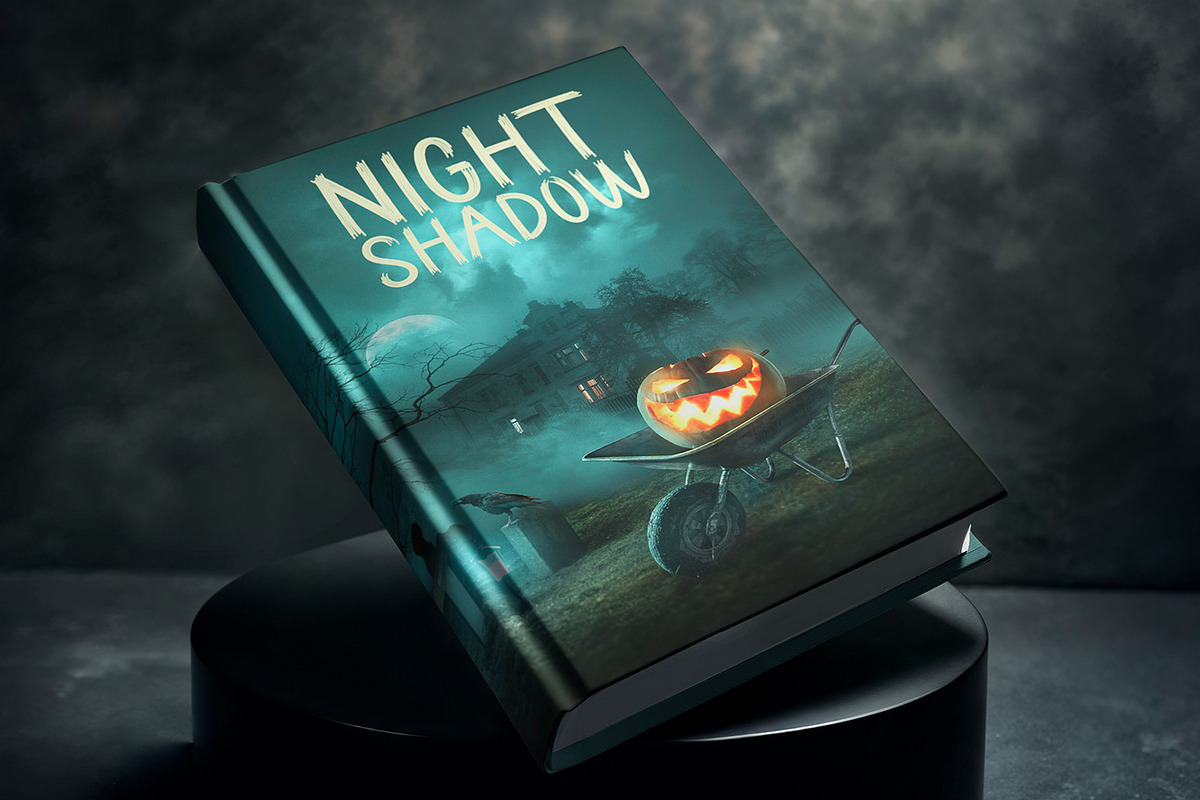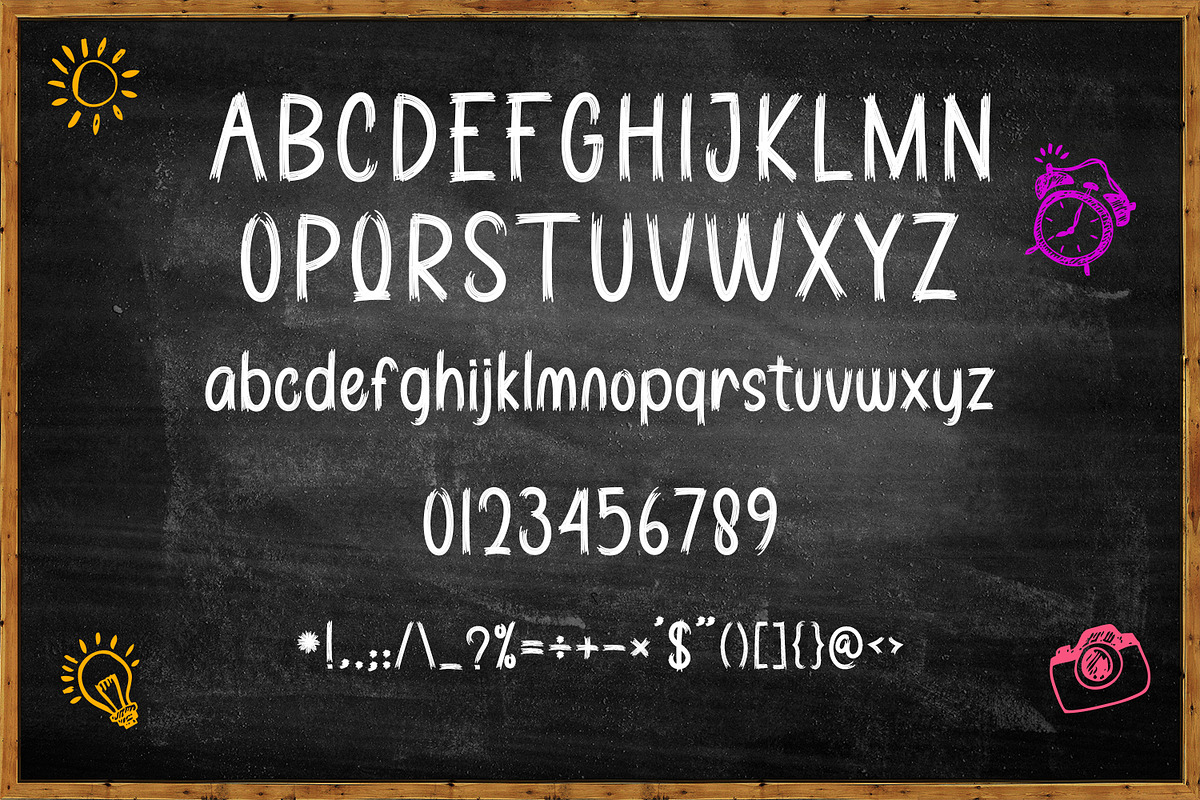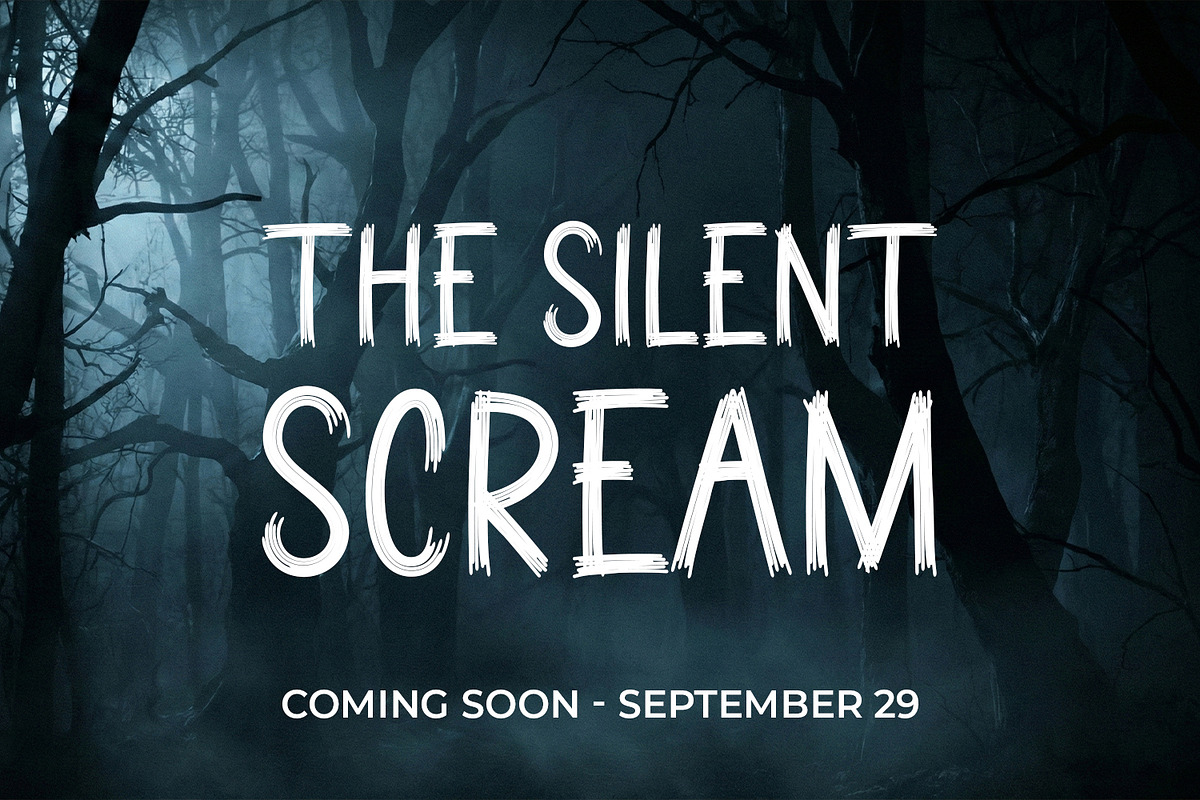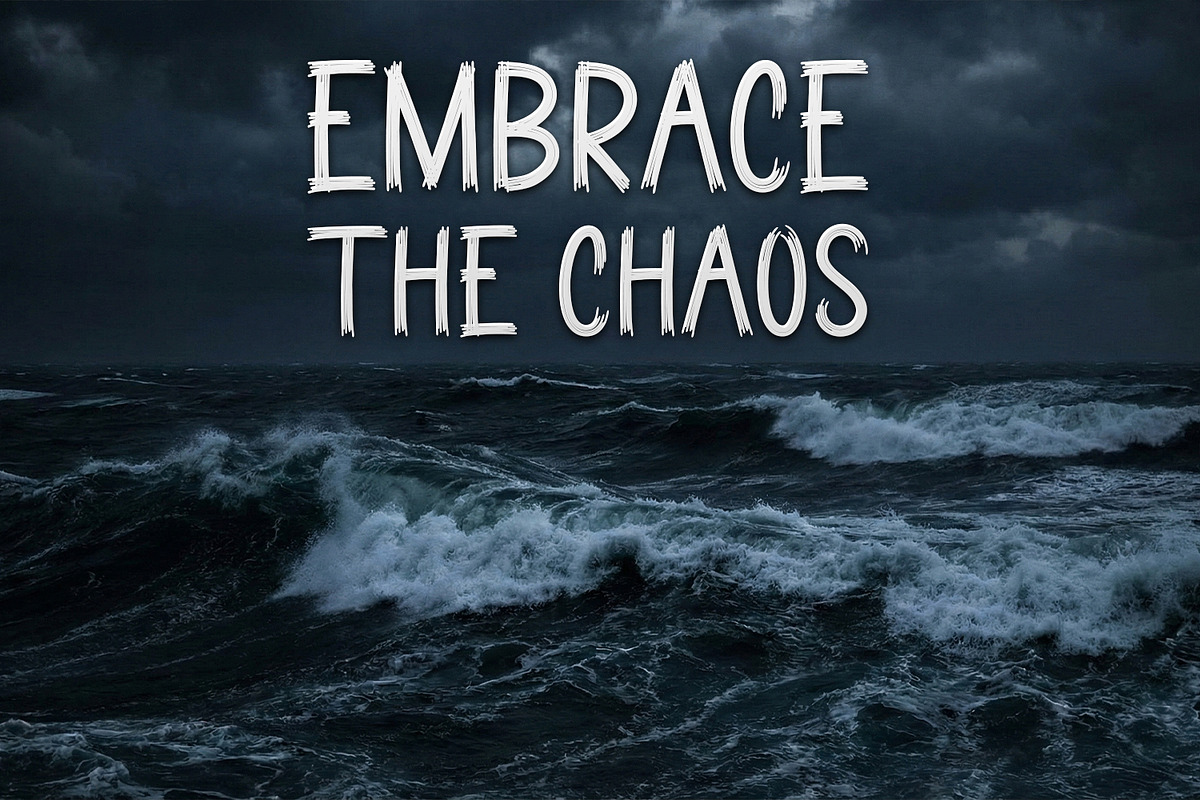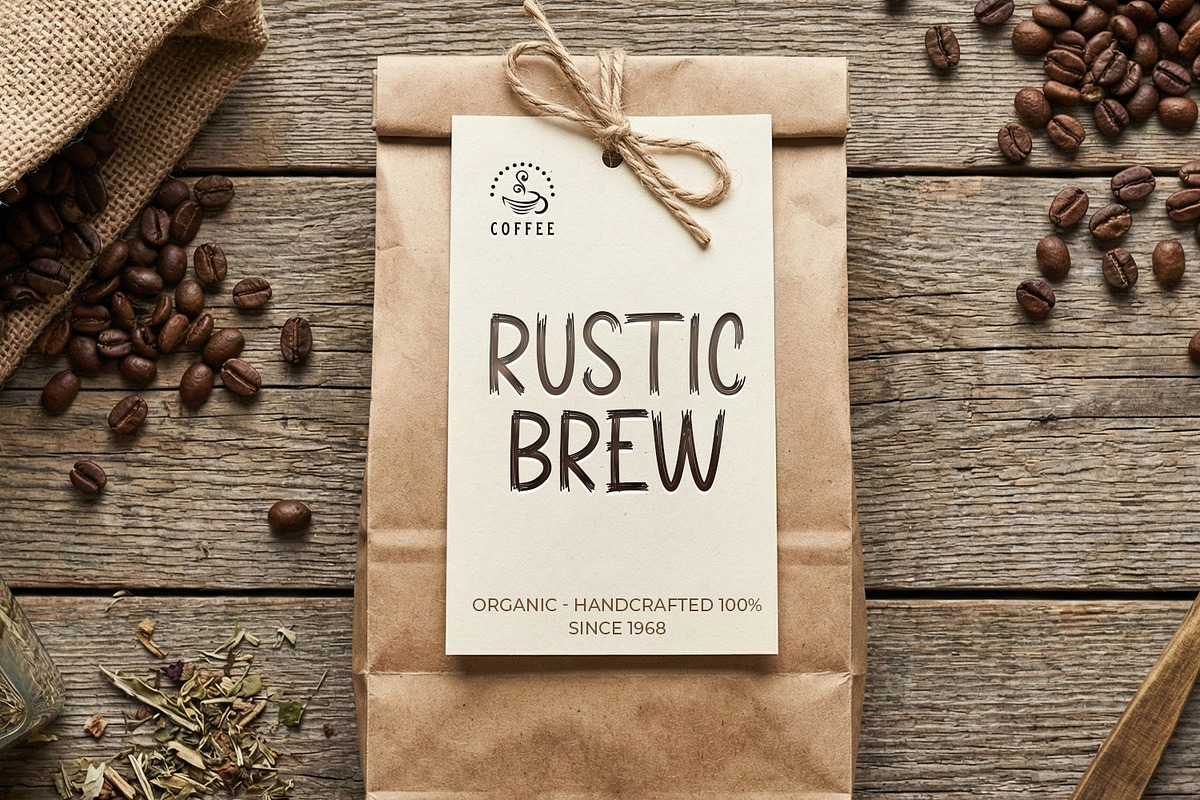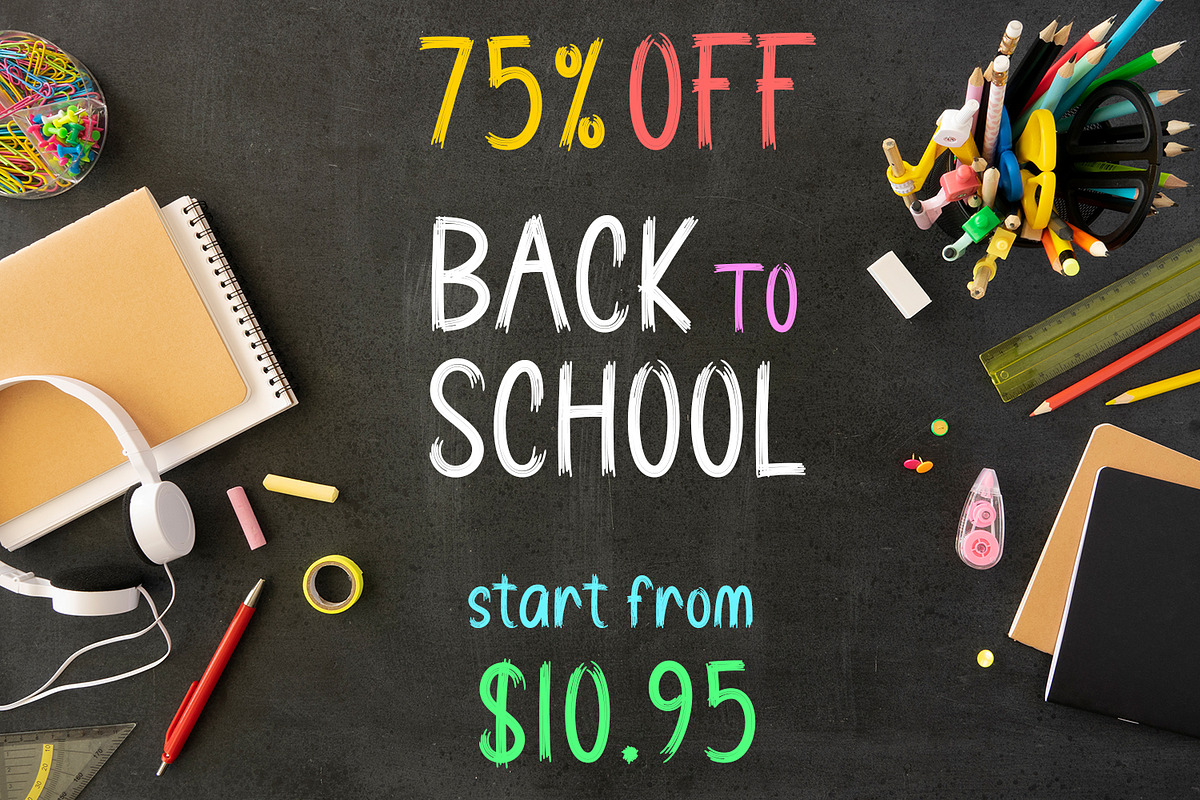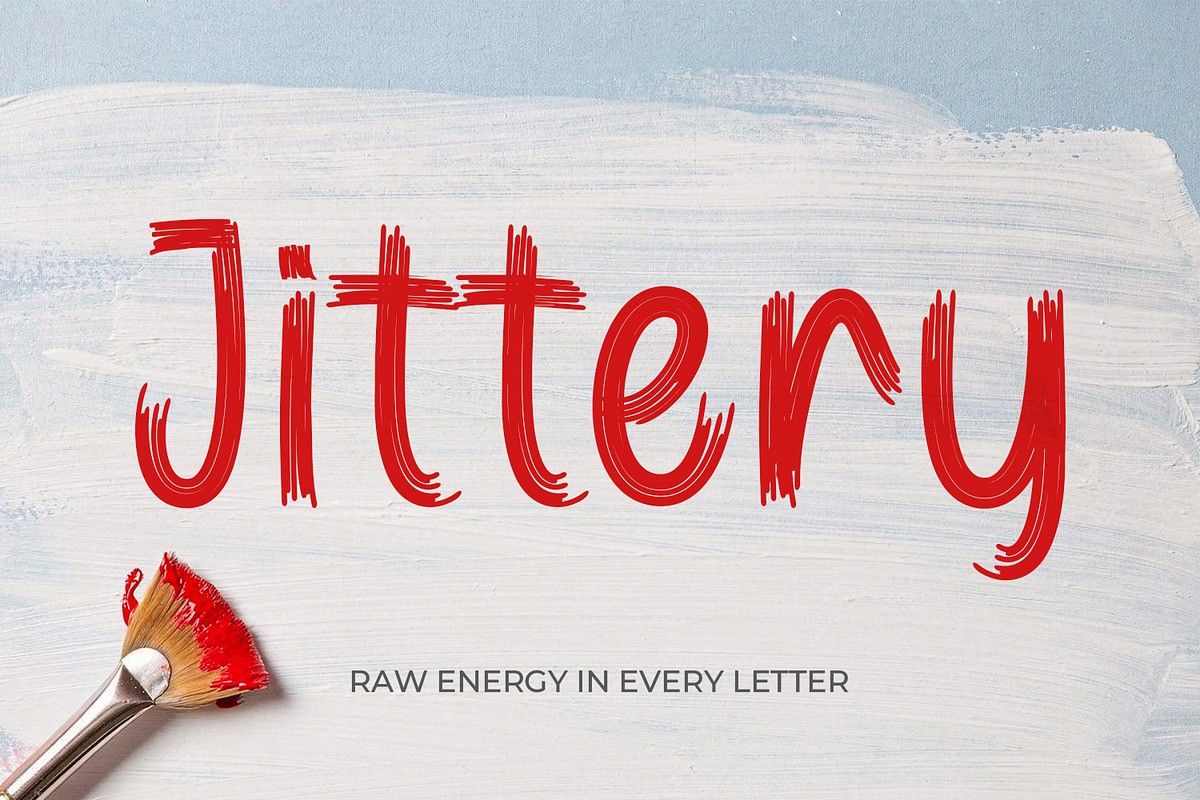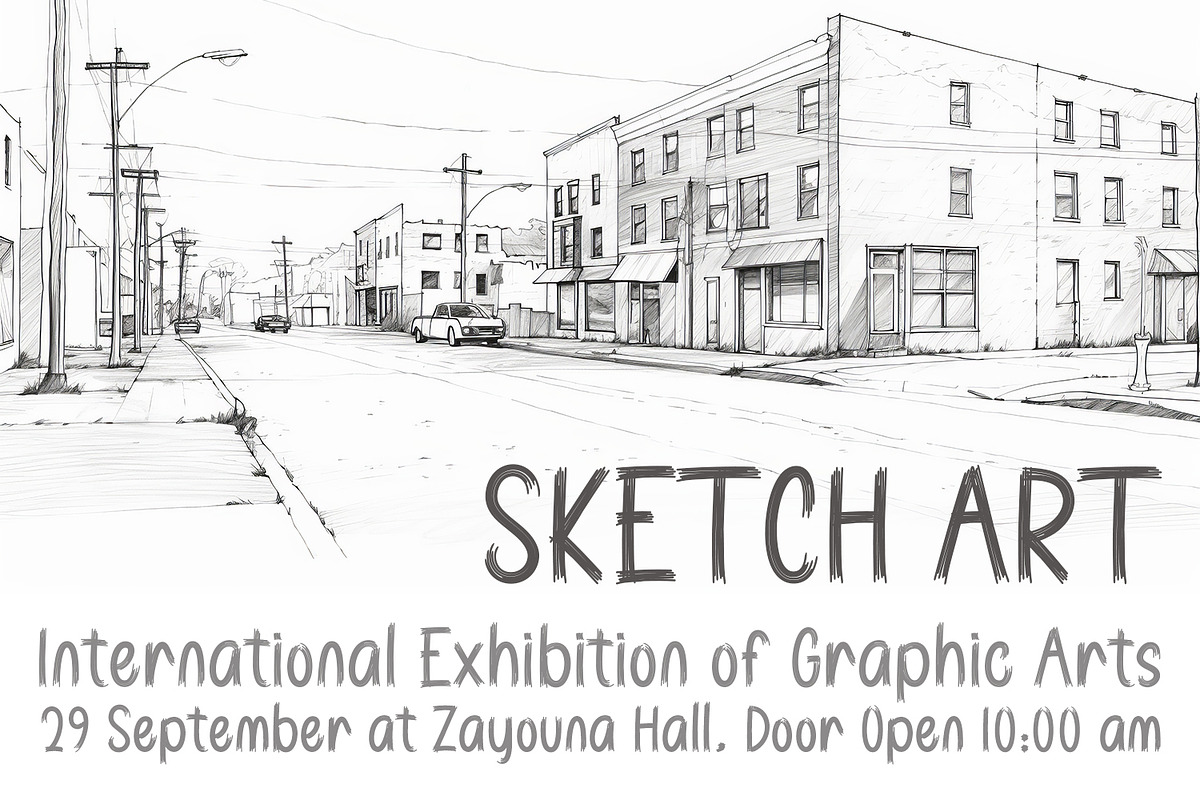
Jittery - Textured Grunge & Sketch
Jittery is a hand-drawn brush font pulsating with raw energy and authentic texture. Designed to embrace the beauty of chaos, this display font features a unique "trembling" stroke style that looks like it was freshly painted with ink.
Perfectly versatile, Jittery can transform from terrifying to playful in an instant. It is the ideal choice for horror movie posters, mysterious book covers, and Halloween designs, yet equally stunning for organic product packaging, rustic coffee labels, and energetic back-to-school campaigns.
Authentic hand-painted texture.
Full set of Uppercase and Lowercase letters.
Numerals, Punctuation, and Symbols.